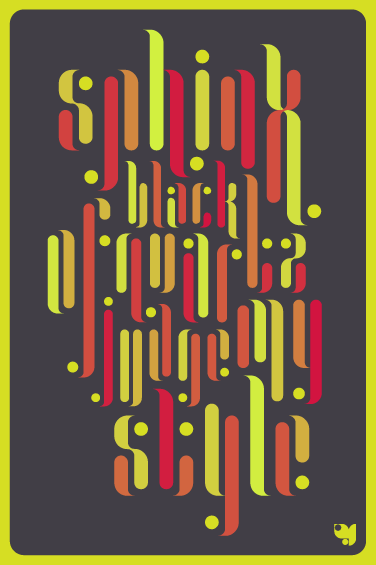
Whoopee
by afrojet
Because you can never have enough ball terminals...
So you did not stop fontstructing !
The title is well chosen, there's here a sort of joy-de-vivre and a retrohippie feeling I think Intaglio would love. Good welcome back among us !
And the verdict is: terrific! Therefore, you are sentenced to many years of joyful fontstructing and FS leading.
Whoopee ... Yehaaa! I must get my old flared loons out again :)
Beautiful use of Fonstruct tools! :-)
Fantabulous! I'll need to dust off my top-picking gauntlets ...
Here, in front of this glyphs, anyone who stops a moment to look can find that kind of magic that makes the world go forward. You are in front of one of the things that make the joy continues to live among us. Thank you for that kind of spell to life.
Awesome afrojet...you got a lot of balls. :)
I'm jealous this is Truly excellent. Extremely distinctive and superbly executed.
Amazing!!!
And Hey! Who is spreading rumors that I had stopped FontStructing? Puh-leeze! FontStruct 4 Life, baby.
Playful yet srsly sophisticated. Love it.
i love the way you instill a type of kinetic energy in your work. very vibrant and alive. and so simple. and that sample is monster.
wow !!! it's so nice to be surprise in the morning by new amazing creations !!!!!!! Great work here too !!!
I'm late to the party, but ooooh, how I love this! Beautiful work, afrojet!
This is gorgeous!
*terminal intensified*